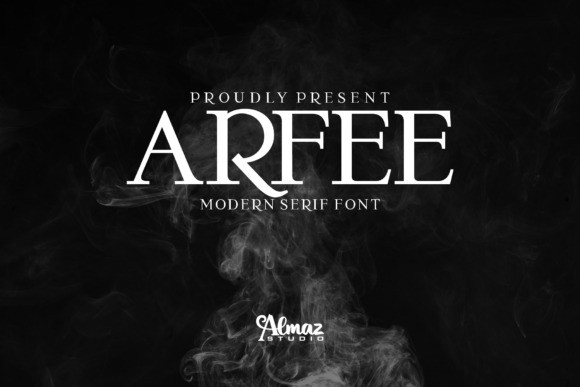
Arfee Font
Arfee Font – A tall condensed typeface, specially designed for beautiful titles. Users can choose to make variations or designs on the letters easily. It is very suitable for various projects, including brand identity, invitations, magazines, logo designs, and others.